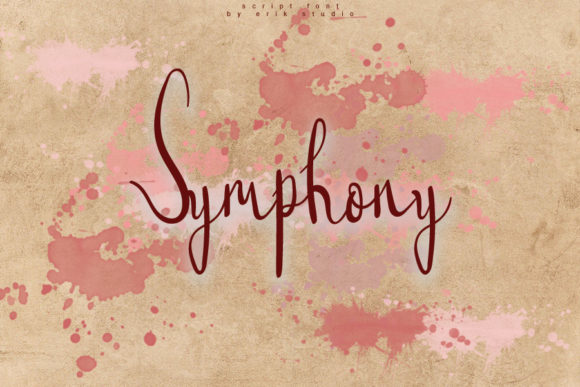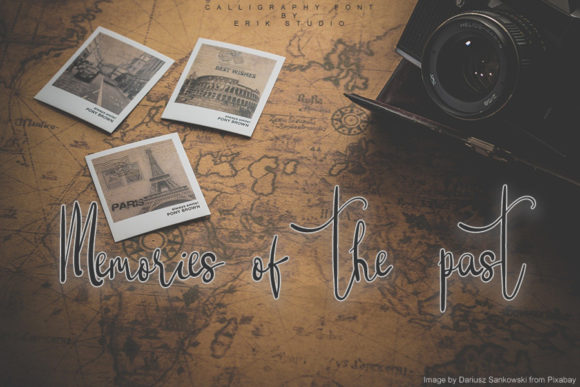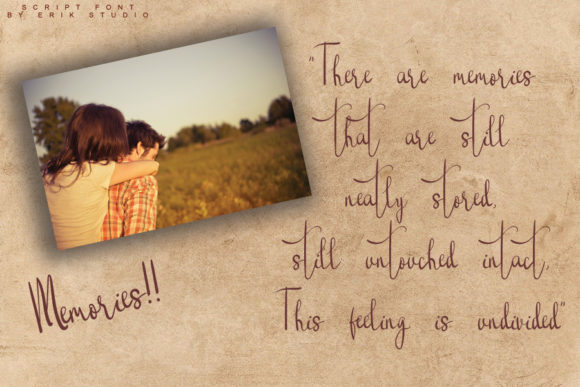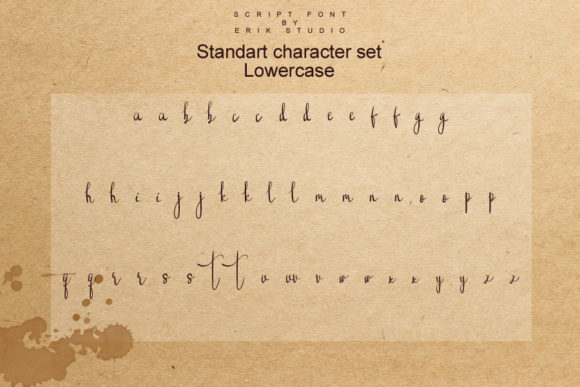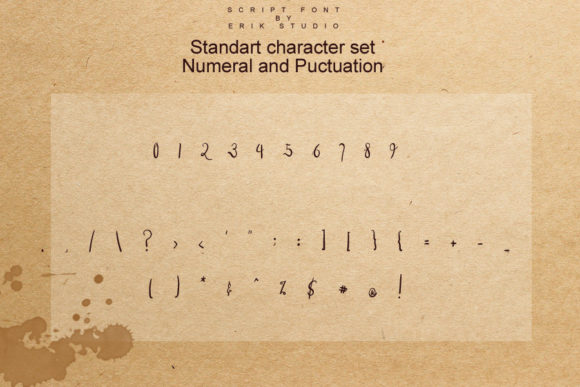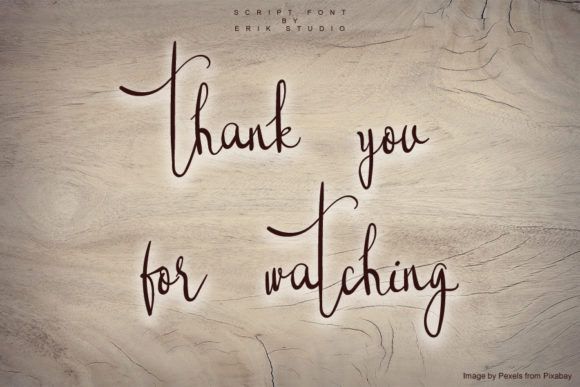
Symphony Font
Symphony is a whimsical script font with a relaxed theme, featuring a lovely style. No matter the topic, this font will be an incredibly asset to your fonts’ library, as it has the potential to elevate any creation.